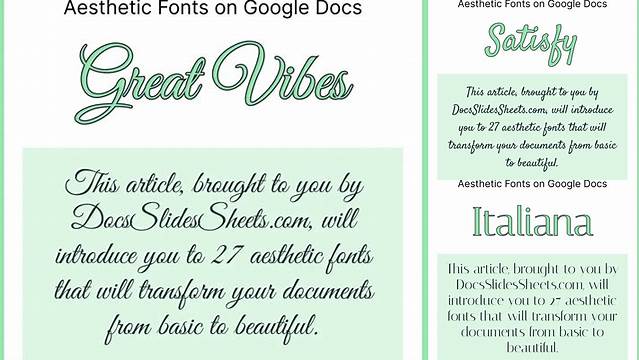
Aesthetic Fonts For Google Docs: Cool Styles Guide
Hey guys! Ever feel like your Google Docs are looking a little…blah? You’re typing away, crafting brilliant content, but the font just isn't vibing with your masterpiece. We’ve all been there! Choosing the right font can totally transform your document from drab to fab. So, let’s dive into the world of cool fonts on Google Docs aesthetic and how you can use them to make your documents stand out.
Cool Fonts for Google Docs: An Introduction
When we talk about cool fonts on Google Docs aesthetic, we're really talking about fonts that add personality, style, and visual appeal to your work. Think beyond the usual Times New Roman and Arial – it’s time to explore the vast library of fonts available and find those hidden gems that scream you. These aren’t just fonts; they're a way to express your creativity and make your documents more engaging. Whether you're working on a professional report, a creative writing piece, or even just a to-do list, the right font can make a world of difference. Let's explore why cool fonts on Google Docs aesthetic are important and how to find the perfect one for your needs.
Why Use Aesthetic Fonts?
Using cool fonts on Google Docs aesthetic isn't just about making your document pretty (though that’s a definite plus!). It's about creating a visual hierarchy, emphasizing key points, and making your content more readable and enjoyable. Imagine reading a novel written in a super boring font – wouldn't it make the whole experience less engaging? The same goes for any document. A well-chosen aesthetic font can capture your reader's attention, reflect the tone of your content, and even boost your credibility. So, let's get into the nitty-gritty of picking the best cool fonts on Google Docs aesthetic for your project!
1. Understanding Font Styles: Serif, Sans-serif, and More
Before we jump into specific font recommendations, let’s get a quick lesson on font styles. This is crucial for understanding what looks good and why. There are two main categories: serif and sans-serif, plus a few more specialized types. Serif fonts have those little “feet” or strokes at the ends of the letters (think Times New Roman), while sans-serif fonts are cleaner and more modern (like Arial). Display fonts are the quirky, attention-grabbing ones, and monospace fonts have equal spacing between each character. Knowing these differences will help you choose cool fonts on Google Docs aesthetic that are both visually appealing and appropriate for your content. Using a serif font for a formal document can convey professionalism, while a sans-serif might be better for a website or presentation. And hey, don't be afraid to experiment with different font styles to find that perfect match!
2. Serif Fonts for a Classic Aesthetic
Serif fonts are like the classic black dress of typography – always stylish and timeless. They bring a touch of elegance and formality to your documents. If you're aiming for a traditional, professional, or scholarly vibe, serif fonts are your best friend. Think of documents like research papers, formal letters, or even a novel – serif fonts make them feel authoritative and easy to read. Some popular serif options in Google Docs include Times New Roman (of course!), Georgia, and Playfair Display. These cool fonts on Google Docs aesthetic can make your text look polished and refined. For example, Georgia is excellent for body text due to its high readability, while Playfair Display can be used for headings to add a touch of sophistication.
3. Sans-serif Fonts for a Modern Look
If you’re going for a clean, modern aesthetic, sans-serif fonts are the way to go. These fonts have a streamlined, minimalist feel, making them perfect for digital documents, presentations, and websites. They’re super readable on screens, which is a big plus! In Google Docs, some fantastic sans-serif options include Arial, Helvetica, and Open Sans. These cool fonts on Google Docs aesthetic are versatile and can work in a variety of contexts. Open Sans, for instance, is a widely used font for web content because it's clear and easy on the eyes. Using sans-serif fonts can give your document a contemporary edge, making it feel fresh and approachable.
4. Display Fonts: Adding Personality and Flair
Now, let's talk about the fun stuff: display fonts! These are the wildcards of the font world, perfect for adding personality and flair to your headings and titles. Think of them as the statement jewelry of your document – they make a bold impression! However, a word of caution: use them sparingly. Display fonts are best used in smaller doses, as they can be overwhelming if used for body text. Google Docs has a bunch of cool display fonts to choose from, like Lobster, Pacifico, and Montserrat. These cool fonts on Google Docs aesthetic can instantly elevate your design. For example, Lobster is great for a vintage or whimsical feel, while Montserrat has a modern, geometric vibe. Using display fonts strategically can make your document visually exciting and memorable.
5. Monospace Fonts: A Retro Vibe
Monospace fonts are a bit of a niche category, but they have a unique retro charm. These fonts have fixed-width characters, meaning each letter takes up the same amount of horizontal space. This gives them a typewriter-like appearance, perfect for coding snippets or adding a vintage touch. In Google Docs, Courier New is the classic monospace font, but there are others like Roboto Mono that offer a more modern take. These cool fonts on Google Docs aesthetic can be used to create a specific mood or highlight certain elements in your document. If you’re writing code examples or want to give your document a nostalgic feel, monospace fonts can be a great choice.
6. Pairing Fonts: The Art of Combining Typefaces
Okay, guys, let's talk about font pairing. This is where things get a little more advanced, but trust me, it’s worth it! Combining different fonts can create a dynamic and visually appealing document. The key is to choose fonts that complement each other, rather than clash. A classic pairing is a serif font for the body text and a sans-serif font for the headings, or vice versa. This creates a nice contrast while maintaining readability. You can also pair a bold display font with a simple sans-serif for a striking effect. When choosing cool fonts on Google Docs aesthetic, think about how they look together. For instance, pairing Playfair Display (serif) with Montserrat (sans-serif) gives a sophisticated and modern feel. Experiment with different combinations to find what works best for your style and content.
7. Best Font Combinations for Google Docs
So, you're ready to dive into font pairing, but where do you start? Here are a few killer font combinations that work beautifully in Google Docs. Pairing a classic serif like Georgia with a clean sans-serif like Arial is a safe bet for readability and professionalism. For a more modern look, try Open Sans for body text paired with Montserrat for headings. If you want to add a touch of elegance, Playfair Display headings over a Lato body can be stunning. And for a creative project, consider pairing a display font like Raleway with a simple sans-serif like Roboto. These cool fonts on Google Docs aesthetic combinations are just starting points – feel free to mix and match to find your perfect blend!
So there you have it, guys! A deep dive into the world of cool fonts on Google Docs aesthetic. Remember, choosing the right font is about more than just looks – it’s about communication, readability, and making your content shine. Now go forth and create some beautifully designed documents!